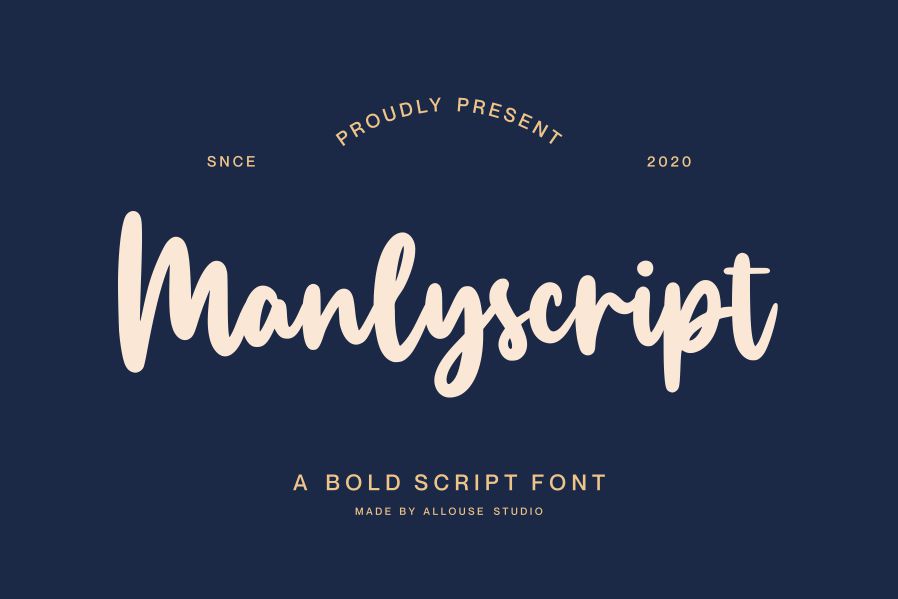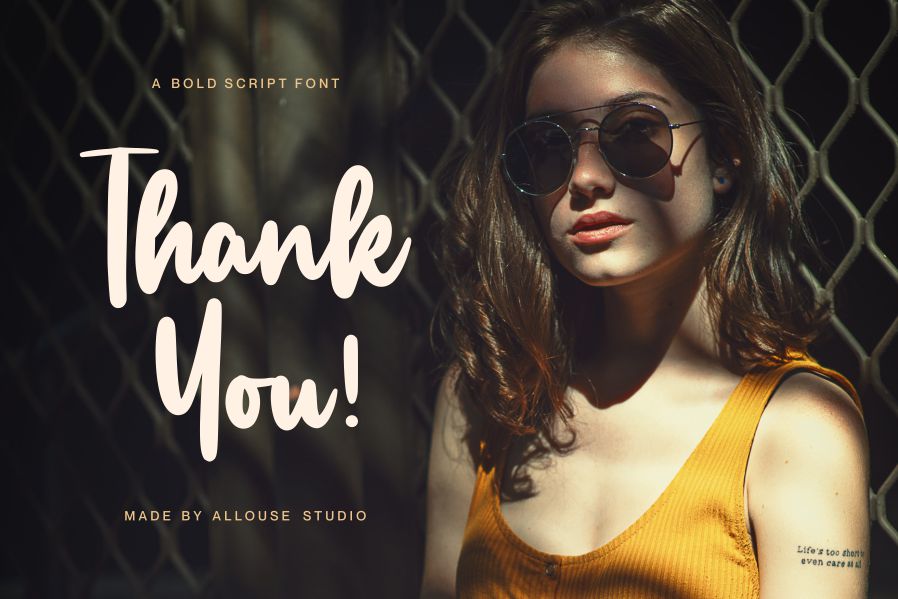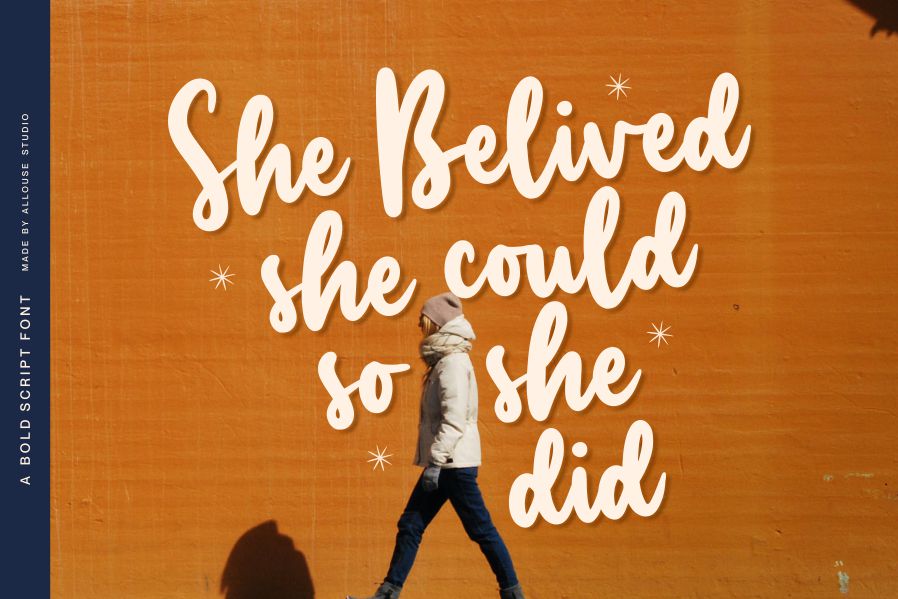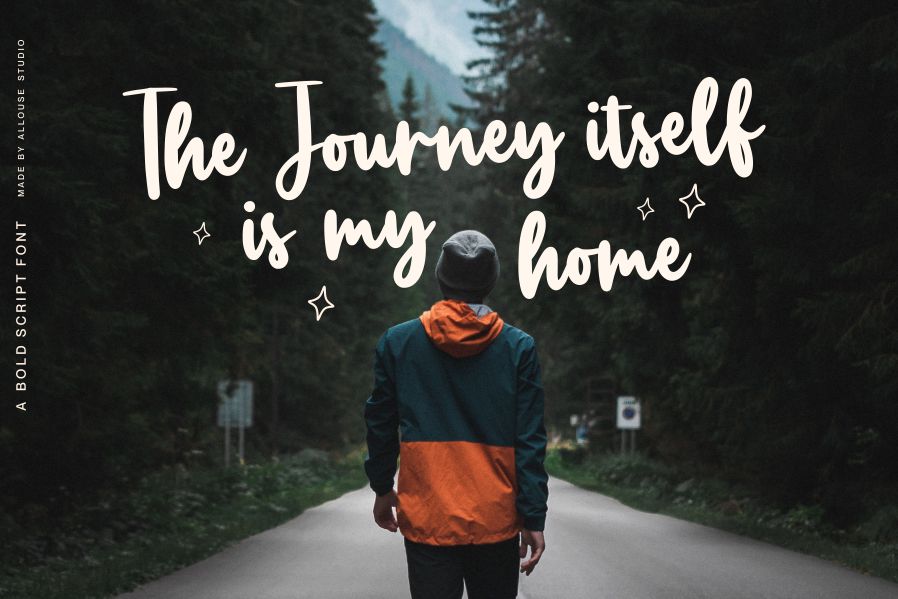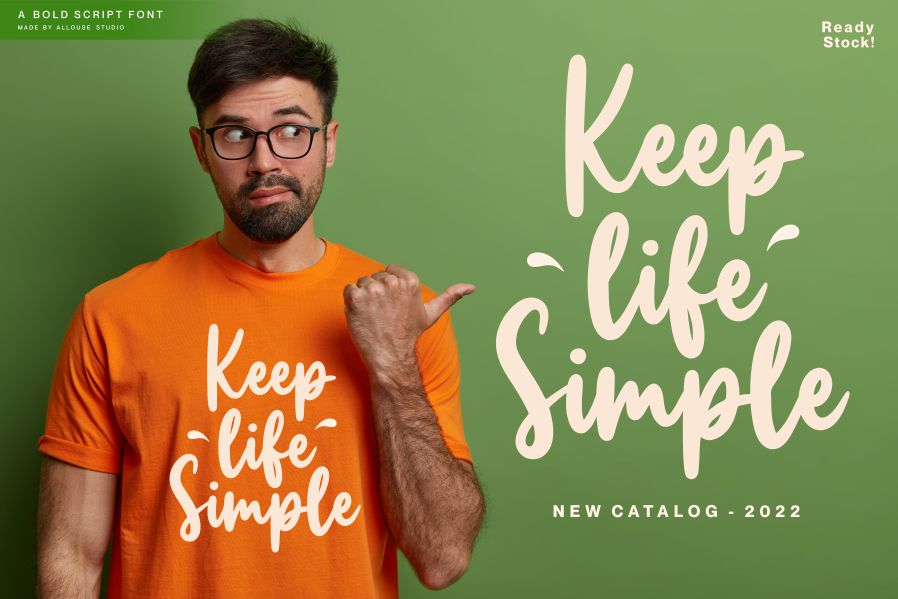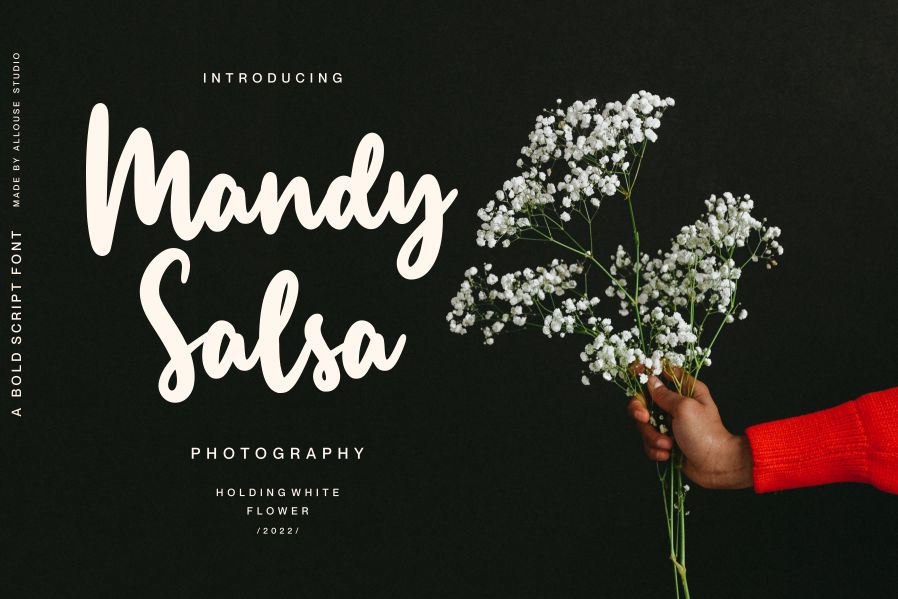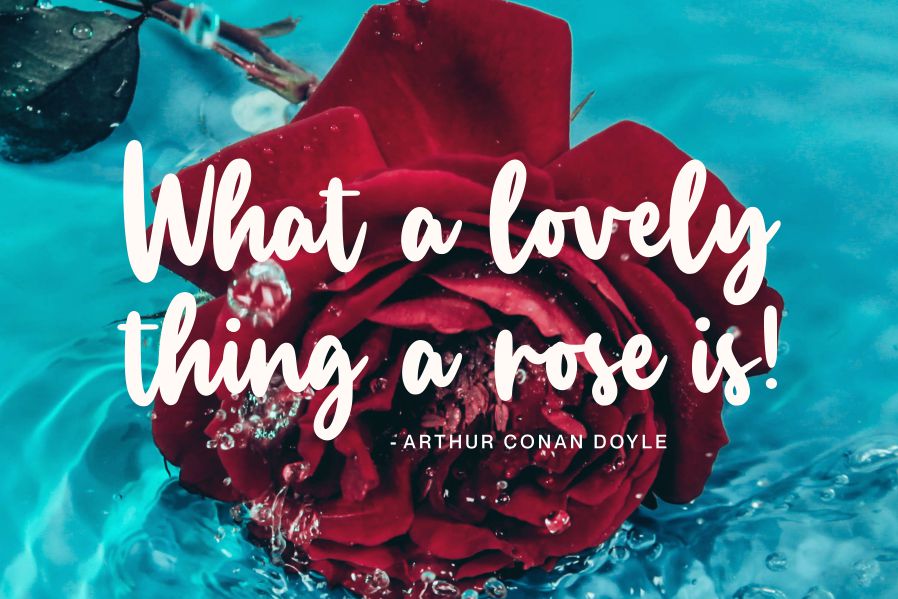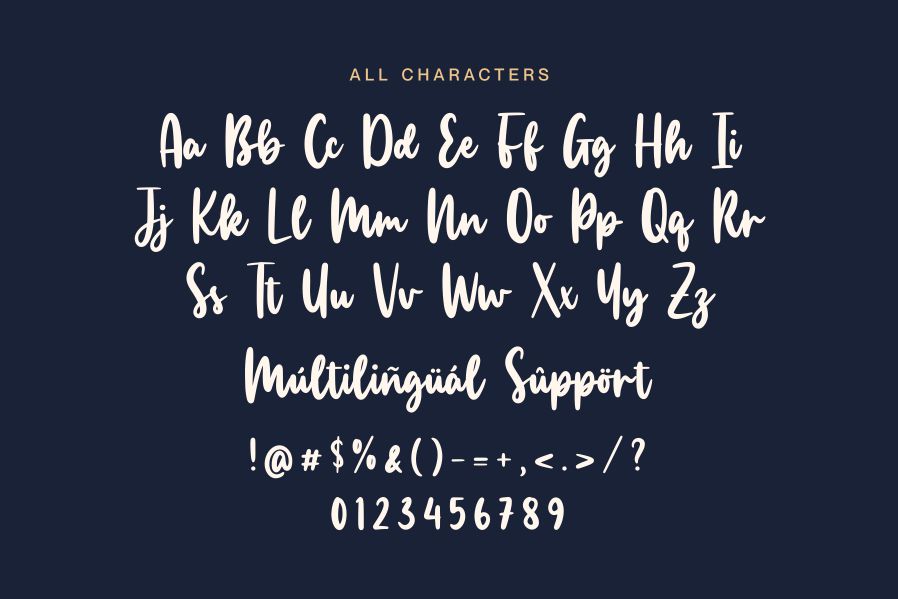
Proudly Presenting, Manlyscript A Bold Script Font.
Manlyscript is suitable for any titles, logo, product packaging, branding project, megazine, social media, wedding, or just used to express words above the background.
Manlyscript also come with Multi-Lingual Support.